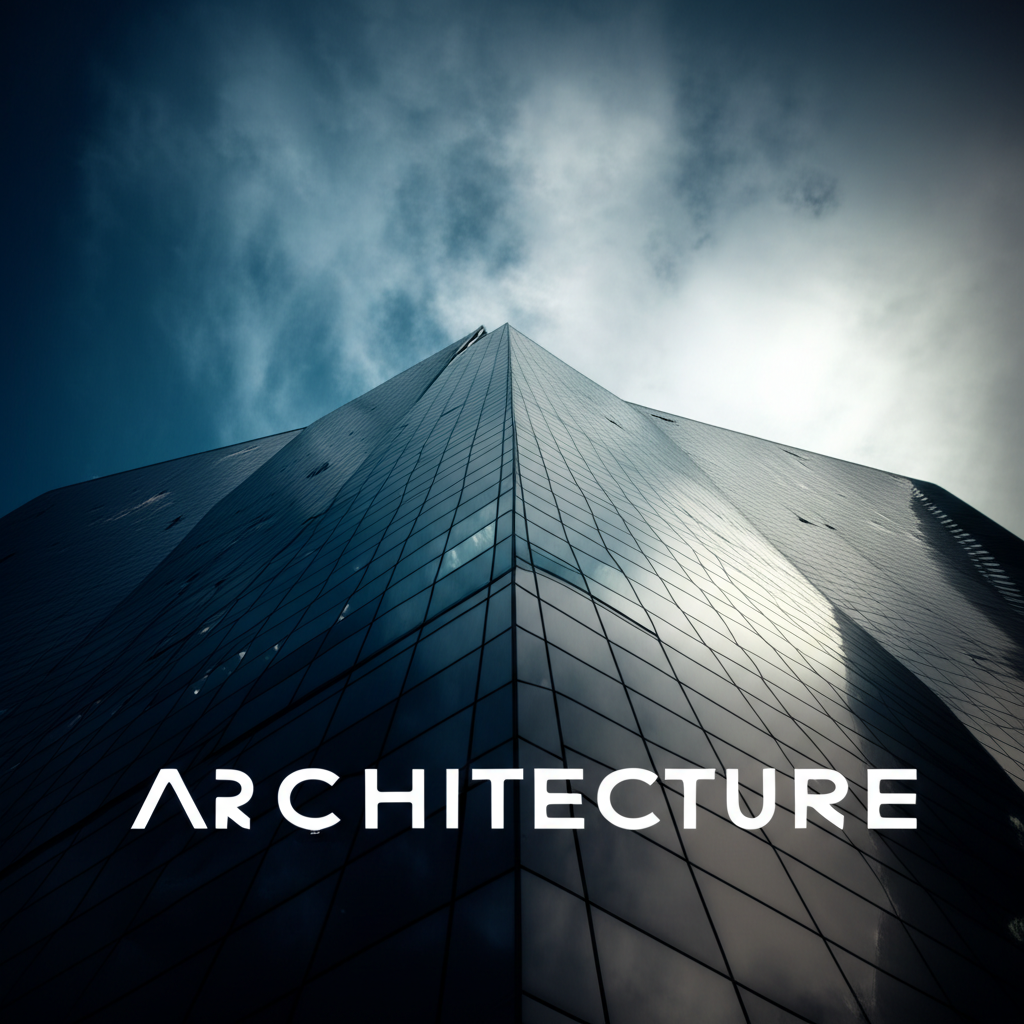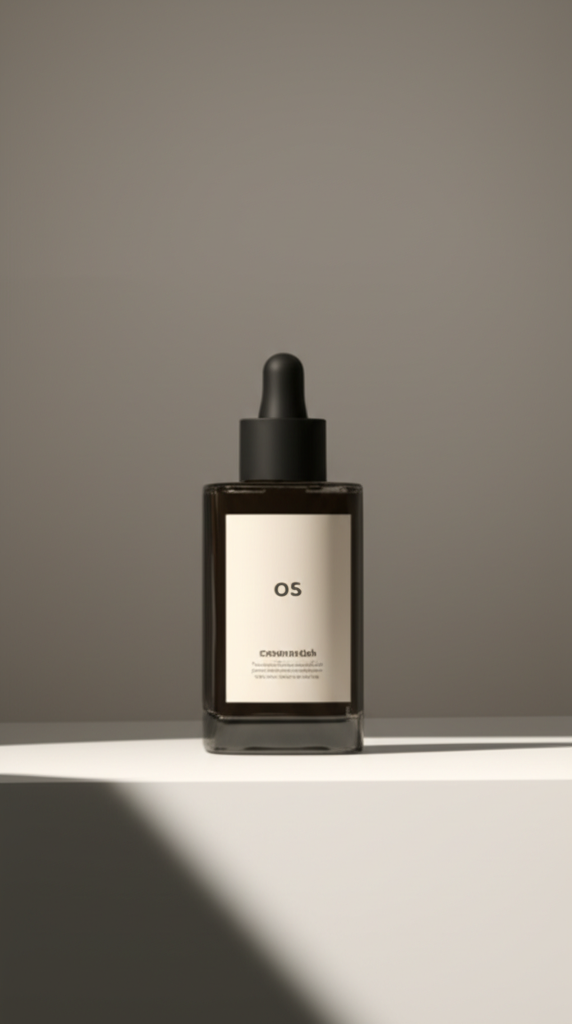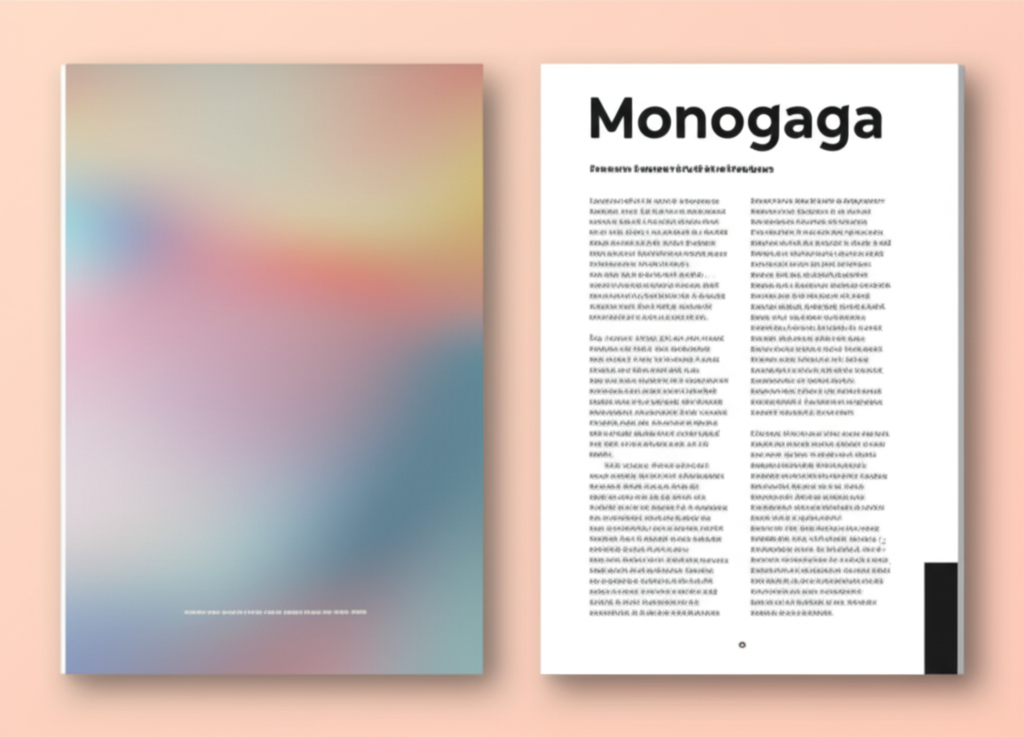
The Making of OS Monogaga: A Tale of Two Cultures
How ancient symbols and modern streets inspired a new voice in type.
Every typeface is a conversation—a dialogue between the past and the present, between form and function, between the artist and the world. For OS Monogaga, that conversation began on the bustling streets of Abidjan, echoed in the silent geometry of ancient Adinkra symbols, and found its voice in the digital realm. It is a font born from a desire to create something unapologetically modern, yet deeply rooted in the rich cultural soil of Côte d'Ivoire.
The initial spark was not found in a studio, but in the raw, unfiltered energy of street art. The hand-painted signs, the vibrant murals, the sheer typographic diversity—it was a living museum of lettering. We asked ourselves: how can we capture this vitality, this human touch, and distill it into a versatile, digital tool?
From Symbol to System
The second key influence was the Adinkra symbology. These visual representations of concepts and aphorisms possess a remarkable graphic efficiency. Their clean lines, balanced forms, and inherent modularity provided the structural backbone for OS Monogaga. We didn't want to simply copy these symbols, but rather to understand their underlying principles—the rhythm, the weight, the negative space—and apply that understanding to the Latin alphabet.
This process involved countless iterations. Early versions were too literal, others too sterile. The challenge was to find the sweet spot where cultural homage meets typographic utility. The distinctive curve of the 'g', the sharp angle of the 'k', the open aperture of the 'c'—each is a small tribute to this dual inspiration.
A Tool for Modern Storytellers
Ultimately, OS Monogaga was designed to be a workhorse. Its extensive weight range, from delicate Thin to impactful Black, makes it suitable for everything from elegant headlines to legible body copy. We built in a robust set of OpenType features—stylistic alternates, case-sensitive forms, tabular figures—to give designers the flexibility they need to tell their own stories. It is a typeface that feels at home on a gallery wall, a magazine spread, or a digital interface. It is a piece of our world, now ready to become a part of yours.